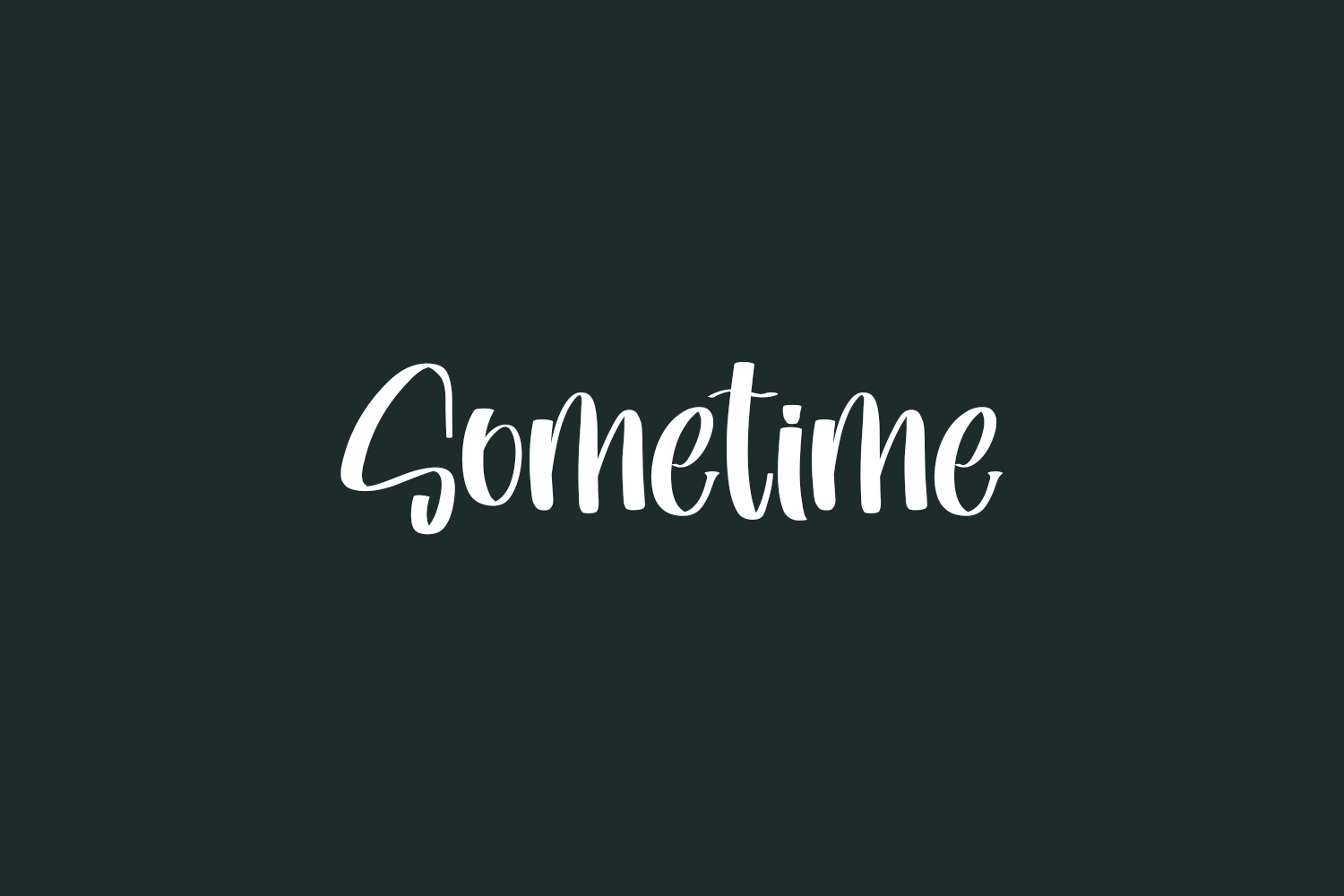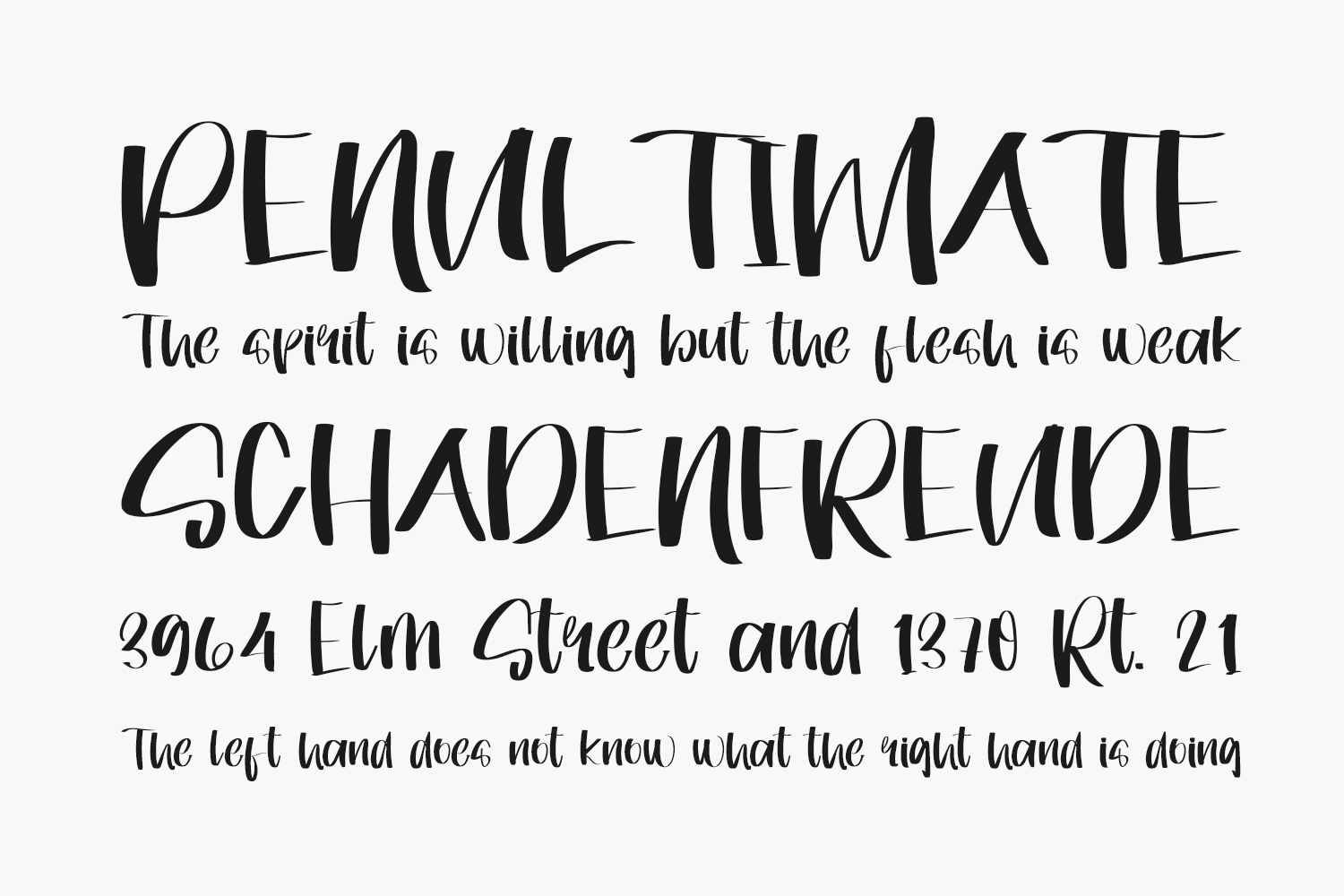
Sometime Free Font is a fresh, dazzling and beautiful script font. Not too thin and not too thick, balanced and varied, this font was designed to enhance the beauty of your projects. Sometime Free Font was designed by FreshtypeINK and is free for personal use only. Please purchase the full version for commercial use.